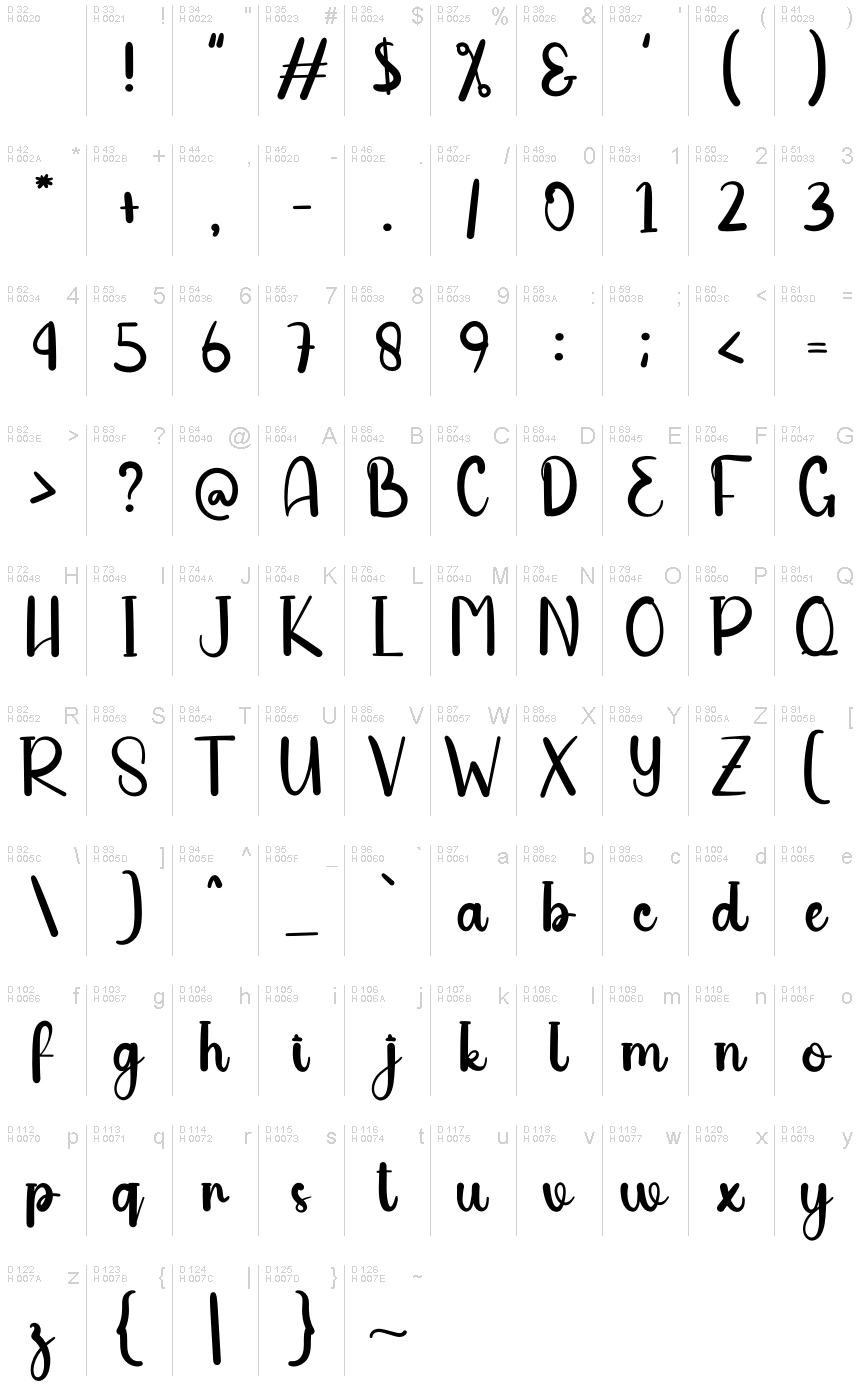
Story Farmhouse
Story Farmhouse is a charming, handwritten font that captures the essence of rustic farmhouse style. Designed by Andi Moz, this font exudes a warm, inviting aesthetic with its organic, flowing strokes and subtle imperfections.
The unique character of each letter adds a touch of authenticity, making it an ideal choice for a wide range of design applications, from branding and packaging to wedding stationery and editorial layouts.
Its versatility allows it to seamlessly blend traditional and modern elements, making it a versatile tool for designers seeking to infuse their projects with a touch of rustic elegance.